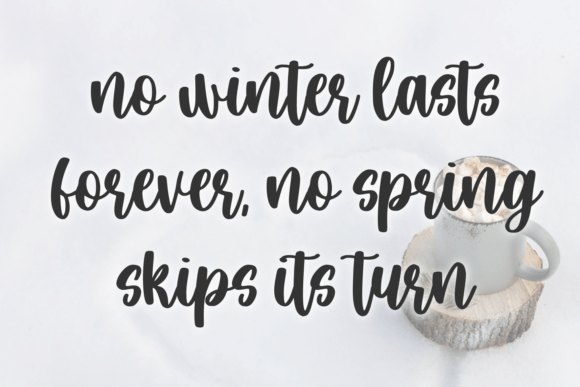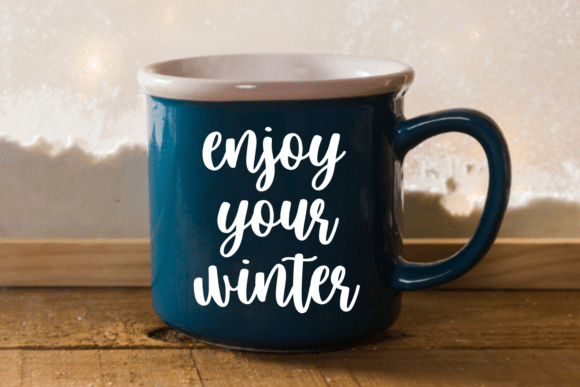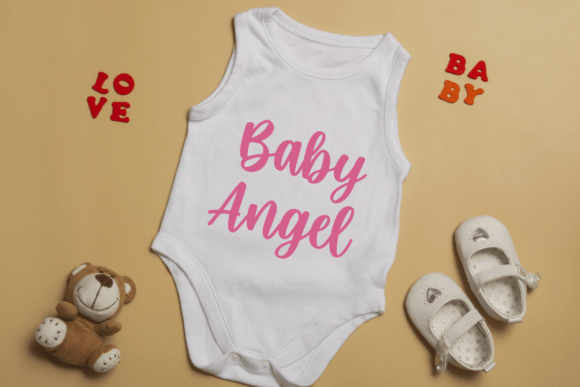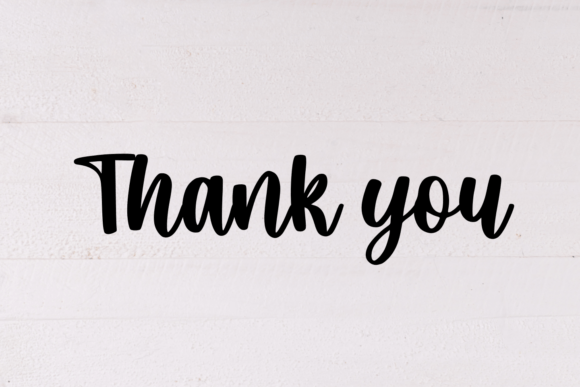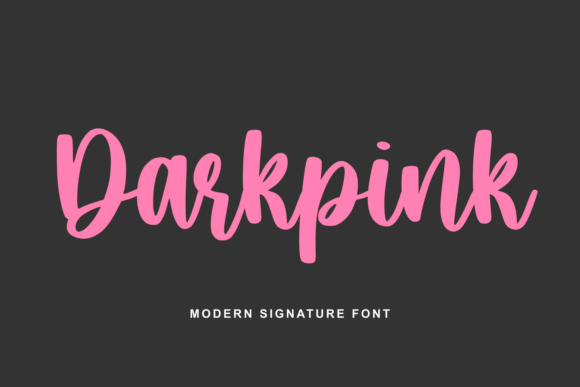
Discover the Charm of Darkpink Font: A Modern Calligraphy Script
Are you looking for a font that combines cuteness with a touch of elegance? Look no further than Darkpink, a modern calligraphy font that brings a joyful personality to your words. With its bouncy curves and gentle flow, Darkpink is perfect for designers and crafters who want to add a playful touch to their projects.
The Unique Characteristics of Darkpink Font
Darkpink is a script font that stands out from the crowd with its lively, sweet rhythm. Its letters seem to dance across the page, giving every word a playful, hand-written feel. The font’s gentle flow and bouncy curves make it perfect for a wide range of applications, from invitations and logos to love notes and more.
One of the key features that sets Darkpink apart is its PUA (Private Use Area) encoding. This means that the font includes a range of glyphs, swashes, and alternate characters that can be accessed with ease. This feature makes it easy to add a personal touch to your designs, and to create unique and eye-catching text.
Darkpink is a versatile font that is perfect for designers and crafters who want to add a touch of personality to their projects. Whether you’re creating invitations, logos, or social media graphics, Darkpink brings a level of elegance and sophistication that is hard to match.
For designers, Darkpink offers a range of possibilities. Use it to create stunning wedding invitations, elegant logos, or eye-catching social media graphics. The font’s playful, hand-written feel makes it perfect for brands that want to convey a sense of fun and personality.
For crafters, Darkpink is a dream come true. Use it to create beautiful handmade cards, personalized gift tags, or custom journal pages. The font’s gentle flow and bouncy curves make it perfect for adding a personal touch to your crafts.
Key Features of Darkpink Font
- Modern Calligraphy Script: Darkpink is a modern calligraphy font that blends cuteness with a touch of elegance.
- Bouncy Curves and Gentle Flow: The font’s bouncy curves and gentle flow give every letter a lively, sweet rhythm.
- PUA-Encoded: Darkpink is PUA-encoded, allowing effortless access to all glyphs, swashes, and alternate characters.
- Perfect for Invitations and Logos: Darkpink is perfect for invitations, logos, love notes, and more.
- Effortlessly Elegant: The font brings a joyful personality to your words while keeping them effortlessly elegant.
Tips for Using Darkpink Font
Here are a few tips for getting the most out of Darkpink font:
- Experiment with Swashes: Darkpink’s PUA encoding includes a range of swashes and alternate characters. Experiment with these to add a personal touch to your designs.
- Mix and Match: Don’t be afraid to mix and match different font sizes and styles to create visual interest.
- Add a Personal Touch: Use Darkpink to add a personal touch to your designs. The font’s playful, hand-written feel makes it perfect for creating unique and eye-catching text.
Darkpink font is a modern calligraphy script that brings a joyful personality to your words. With its bouncy curves and gentle flow, it’s perfect for designers and crafters who want to add a playful touch to their projects. Whether you’re creating invitations, logos, or social media graphics, Darkpink is a versatile font that is sure to impress.